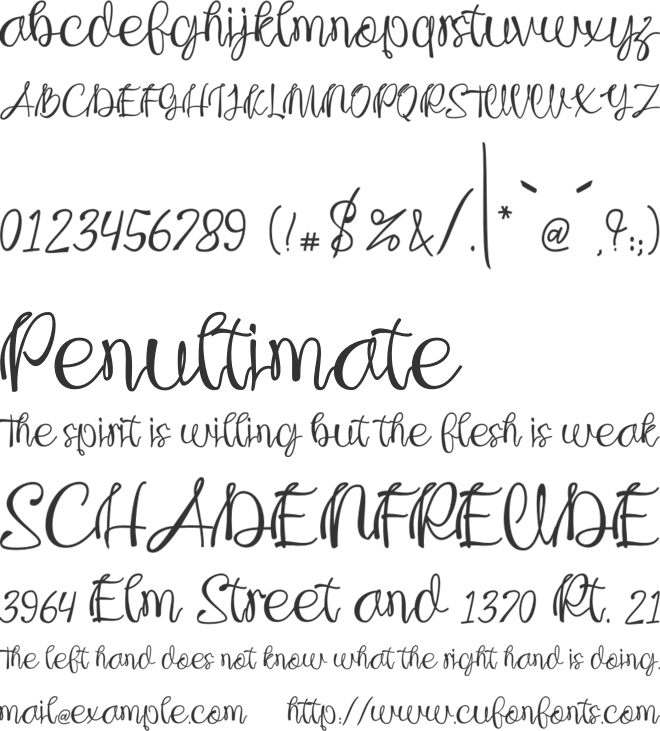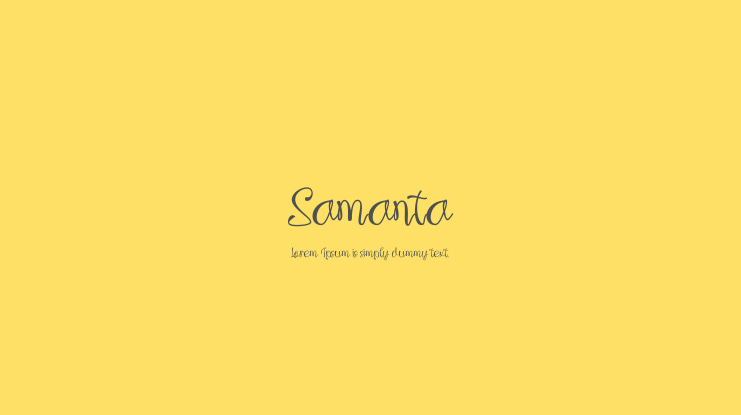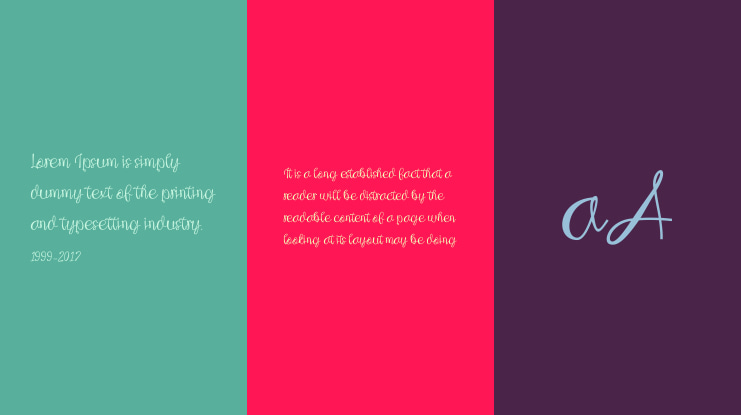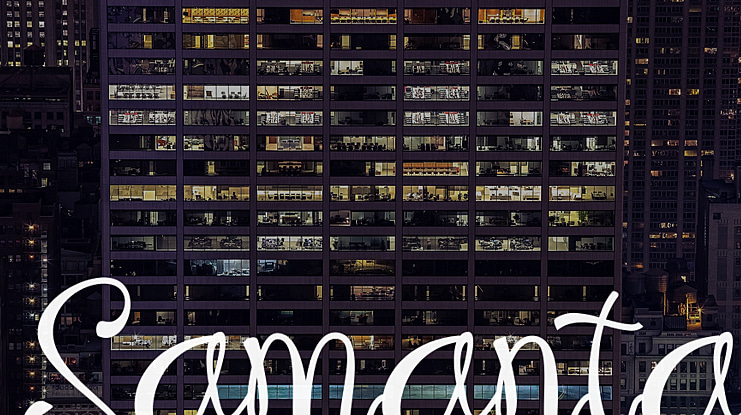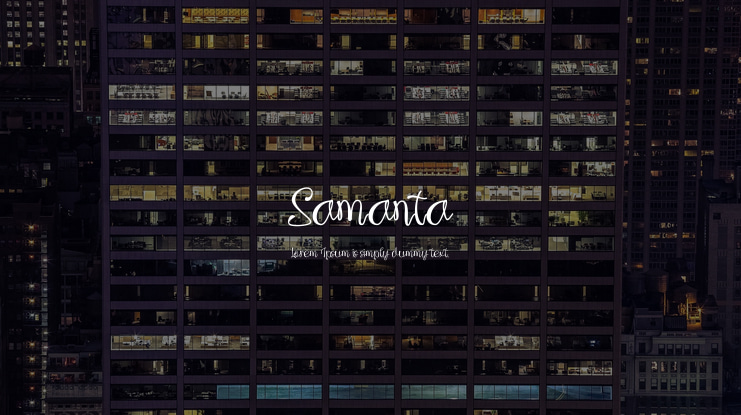
Samanta Font Family
Samanta Script Font. A collection of letters and numbers suitable your projects also great for Logotype, Branding Design, Logo Design, Digital Lettering Arts, T-Shirt/Apparel, Poster, Magazine, Signs, Advertising Design, and any design needs.